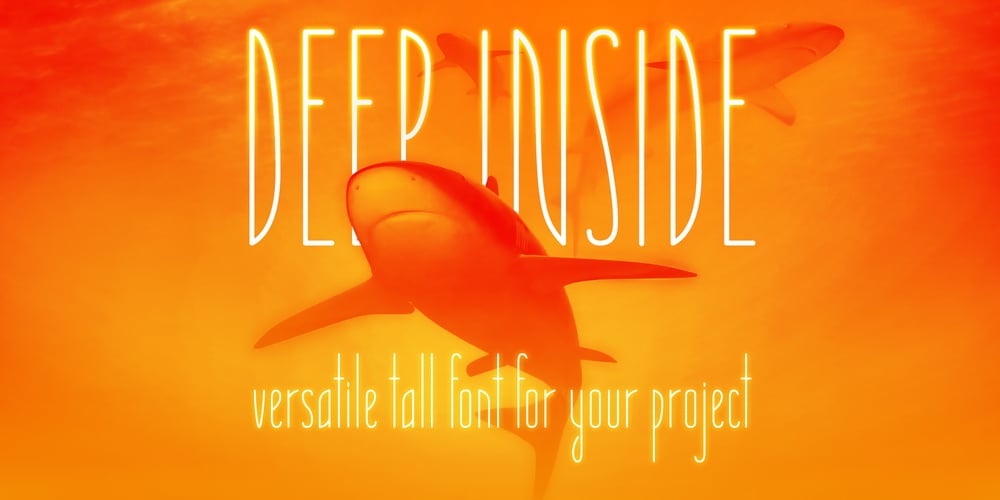
Deep Inside Font Family was designed by Alexander Sharkov and published by Alexander Sharkov. Deep Inside contains 3 styles and family package options. Our new font is versatile. DEEP INSIDE is suitable for completely different needs and areas of your activity and business. But most interestingly, it will be seen in the composition of logos, slogans, various titles and headlines.We are currently developing various typefaces for the DEEP INSIDE font family. Keep for updates.We will be glad if our font complements and improves your project and leads you to success!